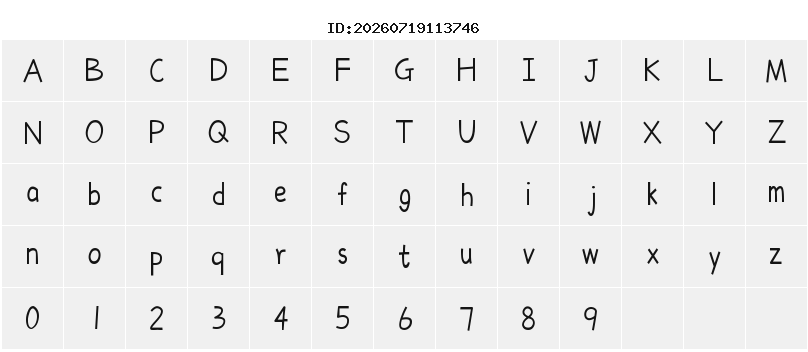
也字工厂甜品菜单体 Preview
• Font Name: 也字工厂甜品菜单体
• Font ID: 1.000;YE ;YEFONTTianPinCaiDanTi
• Full Font Name: 也字工厂甜品菜单体
• PostScript Name: YEFONTTianPinCaiDanTi
• Character Count: 7325
• Manufacturer: 也字工厂
About 也字工厂甜品菜单体.ttf
也字工厂甜品菜单体.ttf is a modern, elegant sans-serif font designed for ultimate readability and visual harmony. Perfect for branding, headlines, web design, and print materials.